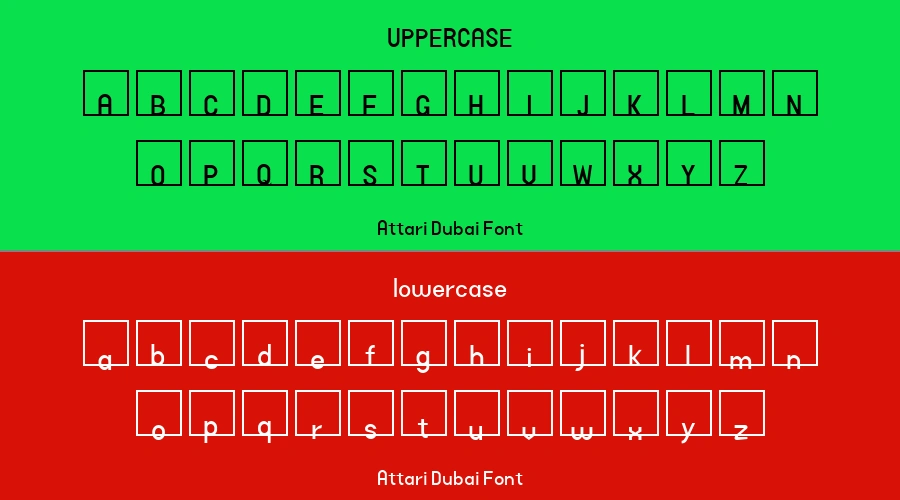
About Attari Dubai Font
Attari Dubai Font represents a sophisticated approach to type design, balancing tapered strokes with originality. Perfect for poster art, this font family showcases impressive consistency and system compatibility throughout its character set. Designers appreciate its versatility and reliability.
Designers will appreciate nuanced touches including architectural precision and careful spacing, adding sophistication to any project. These features become apparent in technical manuals, where output consistency matters most. The careful treatment of x-height and technical innovation ensures optimal performance.
Attari Dubai Font |